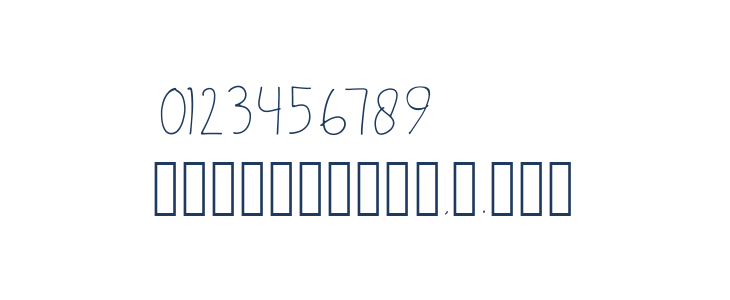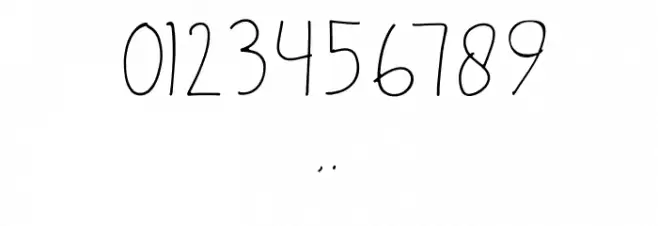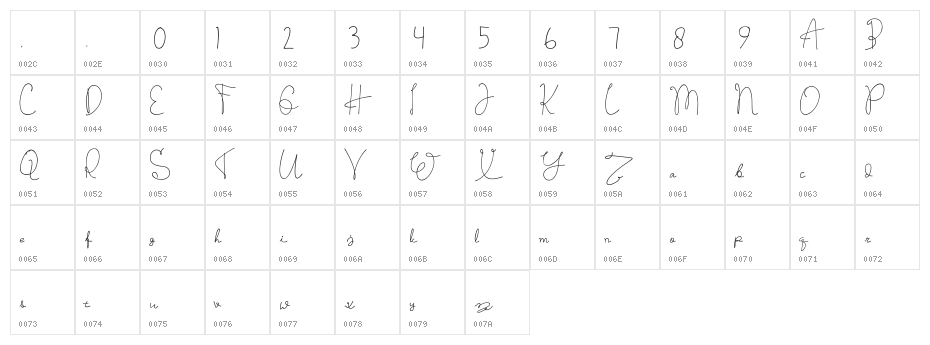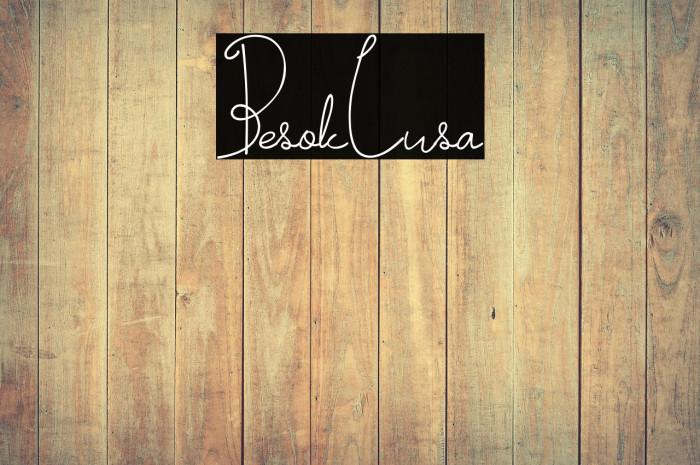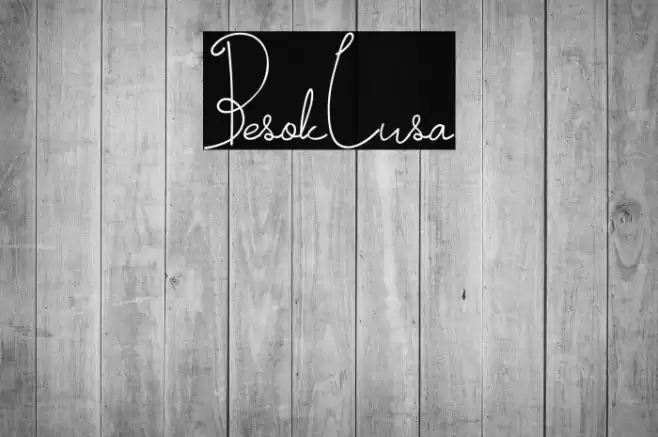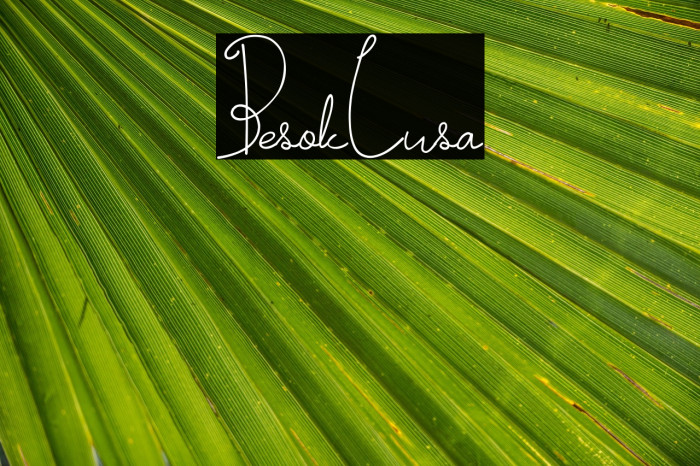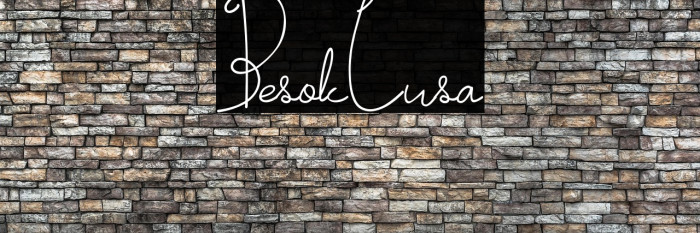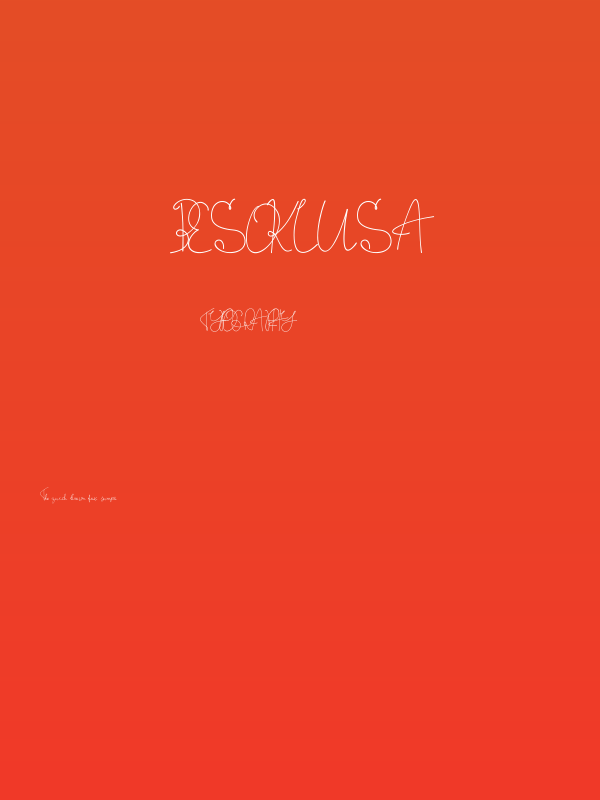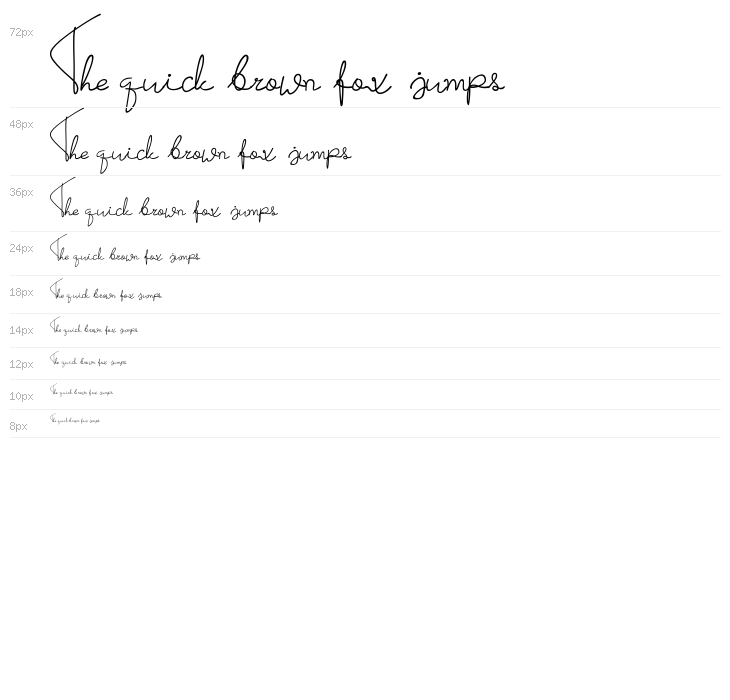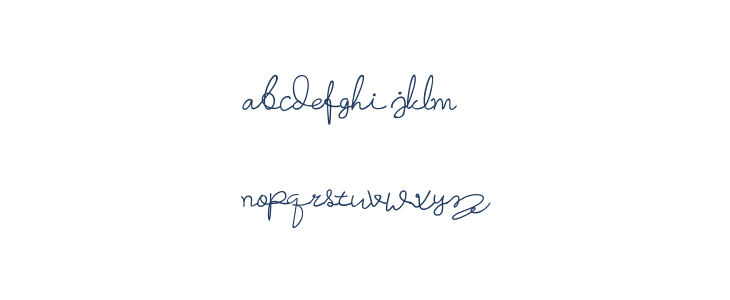
BesokLusa Font
BesokLusa Description
This font features a whimsical and playful handwritten style, characterized by its flowing, interconnected strokes and a sense of movement. The uppercase letters are tall and slender, with unique loops and curves that give each character a distinct personality. The lowercase letters maintain a consistent style, with a slightly more compact form, enhancing readability while retaining the font's playful nature. The numerals are clear and straightforward, matching the overall aesthetic. Special characters are creatively integrated, maintaining the font's cohesive look. This font exudes a casual, artistic vibe, perfect for projects that require a personal touch.